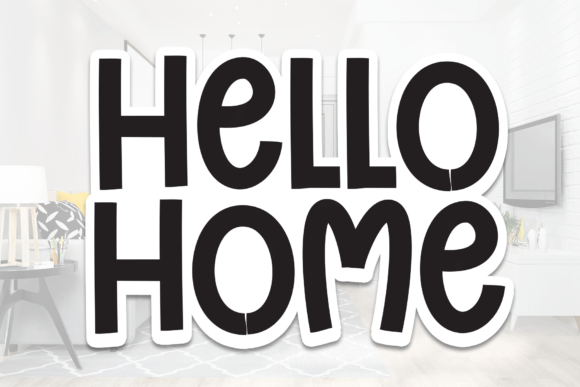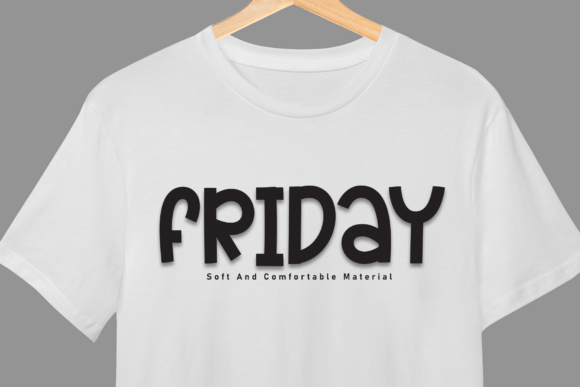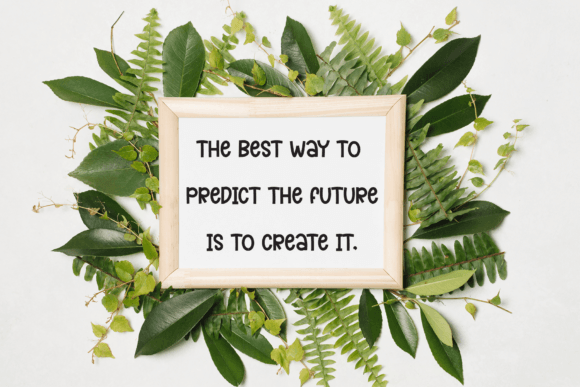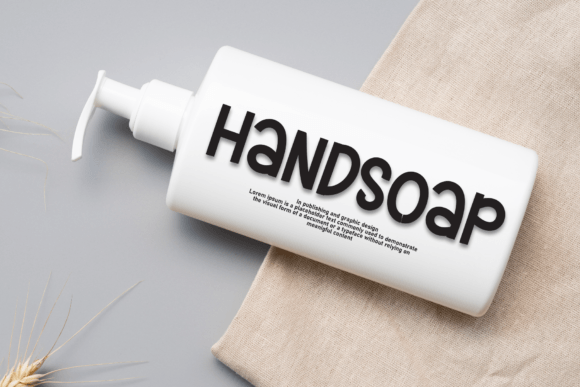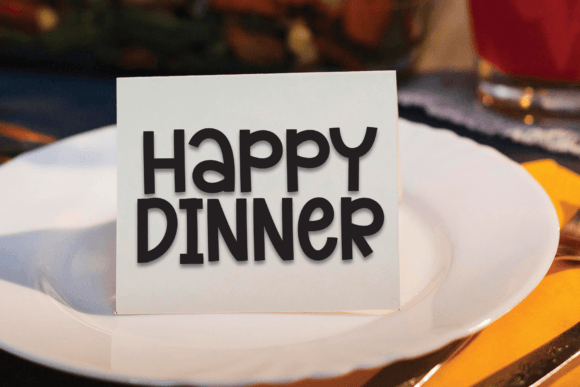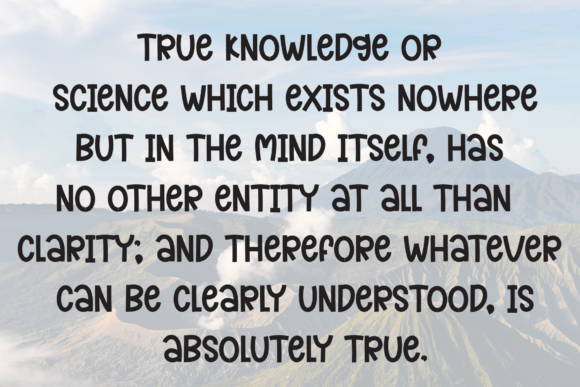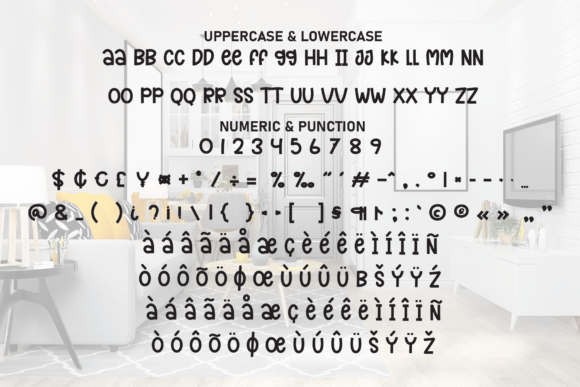
Welcome to the World of Whimsical Typography
Have you ever sat down with a blank sheet of paper, a cup of your favorite coffee, and a dash of creativity? That’s where the magic happens. The moment you let your imagination run wild, and the words start flowing onto the page. For designers, this is the perfect starting point for bringing their ideas to life. And, for those who want to add a touch of playfulness to their projects, Hello Home Font is the perfect companion.
This adorable handwritten display font is designed to evoke a sense of warmth and friendliness, making it perfect for crafting whimsical wedding invitations, heartfelt cards, or any creative project that needs a dash of personality. As a designer, you’ll appreciate the versatility and charm of Hello Home Font, which can be used to create unique and eye-catching designs that stand out from the crowd.
Hello Home Font Key Features
- Font Family: Hello Home is a modern sans-serif font family designed for various digital and print applications.
- Font Size: Available in 4 font weights (Thin, Light, Regular, Bold) and 3 font styles (Italic, Oblique, Regular) to cater to various design needs.
- Unique Characteristics: Hello Home features a clean, minimalist design with subtle rounded edges and a friendly feel, making it suitable for various branding and design applications.
Hello Home Font Review
Overall, I’m quite impressed with the Hello Home Font. Here are a few things that work really well: ✨ It has a lovely, modern aesthetic that’s perfect for a variety of design projects. ✨ The font is highly legible, making it a great choice for body text. ✨ The font also comes in a range of weights, which is always a bonus for designers.
However, there are a few limitations to keep in mind: ⚠️ The font’s italic and bold-italic styles could be improved. ⚠️ The font family is a bit on the heavier side, which may not be suitable for all design projects.
Here are a few key features that I found useful:
- Wide range of weights to choose from
- Highly legible and clear text
- Modern aesthetic suitable for a variety of design projects
Overall, I think the Hello Home Font is a solid choice for designers. While it may not be perfect, it’s a great addition to any font library. With a bit of tweaking, I think it has the potential to be a real standout.
Hello Home Font is ideal for:
- Home decor and furniture design
- Interior design and architecture
- Real estate and property marketing
- Home improvement and renovation
Alternatives to Hello Home Font for Designers
Lato is a modern sans-serif font designed by Łukasz Dziedzic. It is perfect for use in digital products, branding, and web design. Lato is highly legible, making it suitable for both body text and headings.
Compared to Hello Home Font, Lato is more versatile and widely used in various design projects. While Hello Home Font has a unique, handwritten feel, Lato is more neutral and suitable for a broader range of applications.
Montserrat is a sans-serif font designed by Julieta Ulanovsky. It is inspired by urban typography and is ideal for use in digital products, branding, and web design. Montserrat is highly legible and has a strong, modern feel.
Compared to Hello Home Font, Montserrat is more geometric and structured, while Hello Home Font has a more organic, handwritten feel. Montserrat is suitable for use in a variety of design projects, from digital products to print materials.